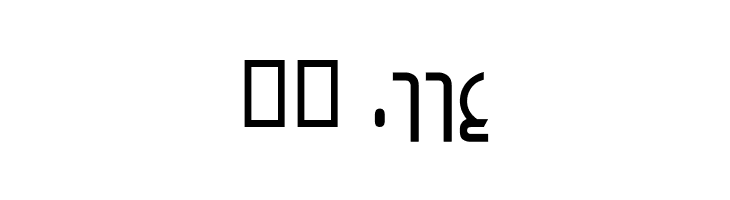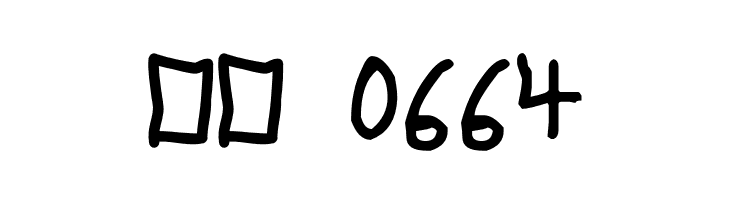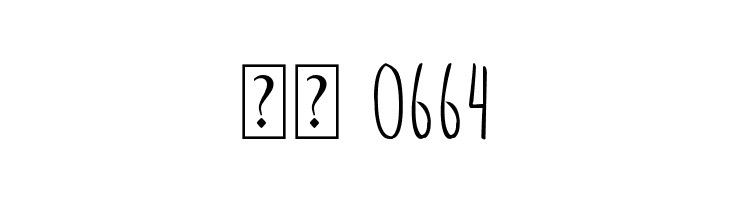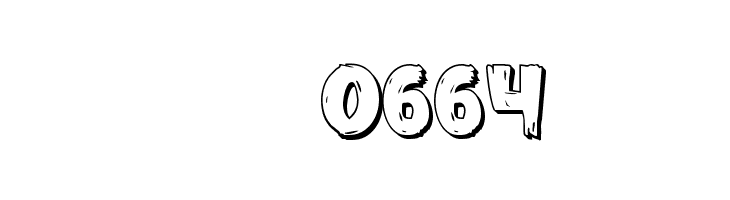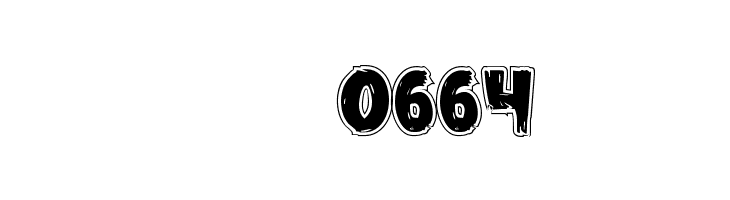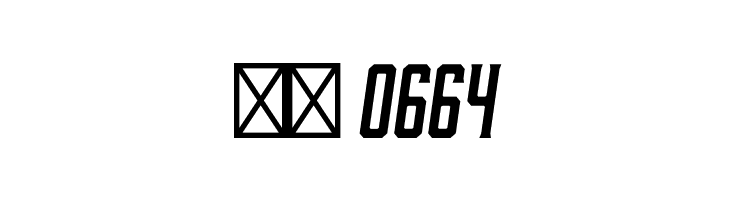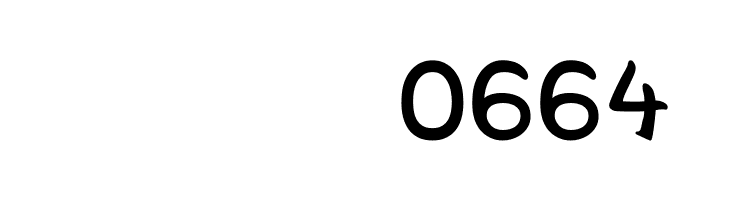
A bold, geometric font with unique cutouts and decorative elements.
A decorative blackletter font with ornate flourishes and high contrast.
An ornate Blackletter font with intricate swirls and bold strokes.
A bold, geometric typeface with sharp angles and clean lines.
A bold, geometric font with a modern and angular design.
A modern, outlined font with a geometric and futuristic style.
A playful, modern font with a double-line effect and dimensional appearance.
A bold, textured font with a playful, vintage style.
A casual, handwritten font with an organic, personal style.
A bold, expressive handwritten font with dynamic brush strokes.
Ornamental vector dingbats with floral and classical motifs.
A bold, distressed font with a rugged, vintage texture.
Motorcycle silhouette dingbat font.
A whimsical, cartoon-like font with playful, animated characters and checkered patterns.
A playful, hand-drawn style font with a casual and informal appearance.
A flowing, cursive script font with elegant swashes and a modern twist.
A futuristic, geometric font with bold, angular letterforms.
A playful, handwritten font with tall, narrow characters and a casual style.
A dynamic, handwritten font with playful and energetic strokes.
A playful, bold, and rounded handwritten font with a cursive-like flow.
A bold, playful font with a 3D effect and jagged outlines, ideal for dynamic designs.
A bold, 3D italic font with a playful, comic book style.
A bold, spooky font with jagged edges and a playful monster theme.
A bold, playful outline font with a distressed, energetic style.